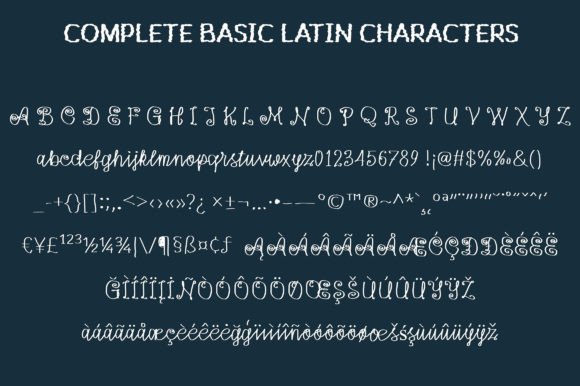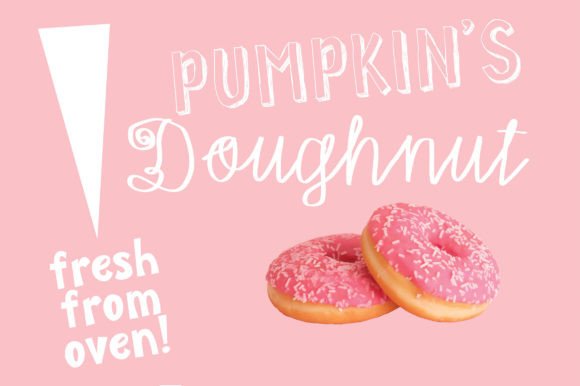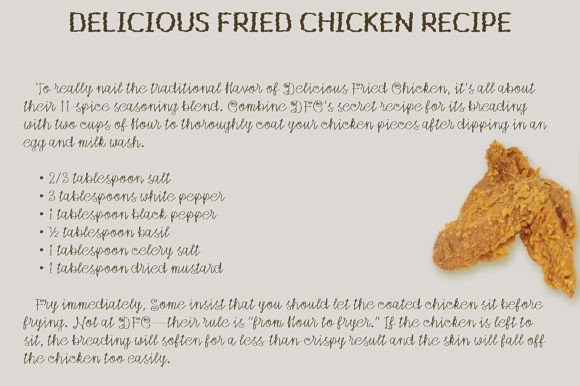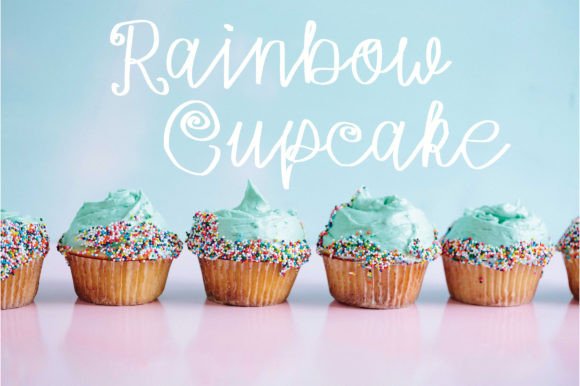
Introducing Amarylist Font: The Ultimate Cute Bold Handwritten Script Font
Are you tired of using the same old fonts in your designs? Look no further! We’re excited to introduce Amarylist, a new cute bold handwritten script font that’s about to become your new favorite. With its unique charm and versatility, Amarylist is the perfect addition to any designer’s font library.
What Makes Amarylist Special?
Amarylist is more than just a font – it’s an experience. Its bold and playful script is carefully crafted to add a touch of personality to any design. Whether you’re working on a creative project, a branding campaign, or simply want to add some flair to your social media posts, Amarylist is the perfect choice.
One of the standout features of Amarylist is its incredible versatility. No matter the topic or theme, this font can adapt and elevate your design to new heights. From kids’ party invitations to fashion branding, Amarylist is the ultimate font for designers who want to make a statement.
Key Features of Amarylist Font
- Bold and Playful Script: Amarylist boasts a confident and cheerful script that’s sure to grab attention.
- Handwritten with Love: Each letter is carefully crafted by hand, giving Amarylist a unique and personal touch.
- Highly Versatile: From digital designs to print materials, Amarylist can be used across a wide range of applications.
- Easy to Read: Despite its bold nature, Amarylist remains easy to read, making it perfect for body text and headlines.
How to Use Amarylist in Your Designs
So, how can you make the most of Amarylist in your designs? Here are a few ideas to get you started:
- Pair it with Other Fonts: Combine Amarylist with a clean sans-serif font for a striking contrast.
- Use it for Headlines: Amarylist’s bold script is perfect for grabbing attention in headlines and titles.
- Add it to Your Branding: Use Amarylist to add a personal touch to your brand’s identity and marketing materials.
- Experiment with Colors: Amarylist looks great in a range of colors, from bright and bold to soft and pastel.
Why Designers and Crafters Love Amarylist
Amarylist is quickly becoming a favorite among designers and crafters, and it’s easy to see why. Here are just a few reasons why:
- Unique and Eye-Catching: Amarylist adds a touch of personality to any design, making it stand out from the crowd.
- Easy to Use: With its clean and intuitive design, Amarylist is easy to use, even for those new to font design.
- High-Quality Design: Amarylist is crafted with love and care, ensuring a high-quality design that’s perfect for professional applications.
In conclusion, Amarylist is an incredible asset to any designer’s font library. Its unique charm, versatility, and high-quality design make it the perfect choice for a wide range of applications. Whether you’re a seasoned designer or just starting out, Amarylist is sure to become your new go-to font. So why wait? Download Amarylist today and start elevating your designs to new heights!